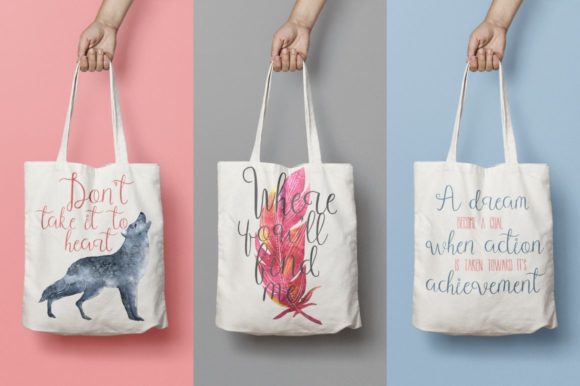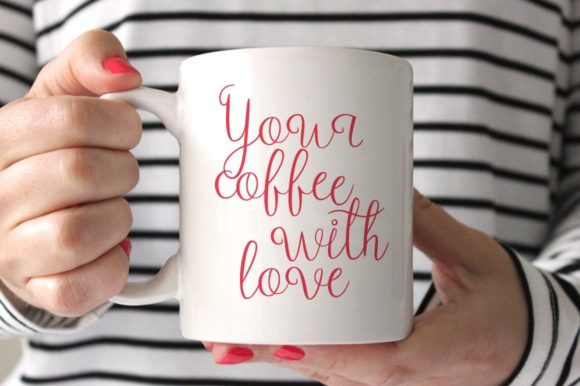
Unlock Your Creativity with Beathrice Font
Have you ever sat down with a blank piece of paper, a cup of coffee, and a spark of inspiration, only to let it fade away as you struggle to bring your vision to life? We’ve all been there, and that’s why we’re excited to introduce you to Beathrice Font – a beautiful, handwritten font that’s designed to help you express yourself with ease.
Whether you’re a seasoned designer or a creative hobbyist, Beathrice Font is the perfect tool to add a personal touch to your projects. With its unique blend of alternative letters and free watercolor elements, this font is ideal for creating eye-catching t-shirt designs, invitations, posters, postcards, and even branding materials for your small shop or cafe. The Beathrice Font package includes everything you need to get started, from the font files to the watercolor elements, all ready to use in your favorite design software.
Beathrice Font Key Features
- Unique Characteristics: Beathrice is a modern, elegant script font with a unique blend of handwritten and calligraphic styles, featuring flowing connections and subtle flair.
- Character Set: Supports Latin, Cyrillic, and Greek alphabets, as well as a range of punctuation and special characters
Beathrice Font Review
Beathrice Font is a beautiful, elegant script font that catches the eye ✨. The flowing lines and gentle curves create a sense of sophistication and refinement, making it perfect for high-end branding, weddings, and other special occasions.
- The Beathrice Font is highly legible, even at small sizes ✨.
- The font’s subtle flourishes add a touch of whimsy and personality to any design.
- The Beathrice Font is highly customizable, allowing designers to adjust the spacing and kerning to suit their needs.
- The Beathrice Font can be challenging to read in bold or all-caps styles ⚠️.
- The font’s connecting strokes can be difficult to manage in certain situations, such as when using Beathrice in combination with other fonts.
Overall, the Beathrice Font is a stunning addition to any designer’s toolkit. While it may have some limitations, its beauty and elegance make it well worth the occasional challenges. With practice and patience, designers can master the Beathrice Font and create truly breathtaking designs.
Beathrice Font is ideal for creating elegant and sophisticated designs, making it perfect for wedding invitations, business cards, and other high-end marketing materials.
Beathrice Font is ideal for creating intricate and detailed designs, making it perfect for logos, typography-based art, and other high-end design projects.
Beathrice Font is ideal for creating elegant and sophisticated presentations, making it perfect for business pitches, product launches, and other high-end marketing materials.
Beathrice Font is ideal for:
- Logos and typography-based art
- Presentation and document design
Remember to experiment with different font sizes, colors, and styles to get the most
What is the recommended font size for Beathrice?
The recommended font size for Beathrice varies depending on the application and intended use. However, as a general guideline, we recommend using Beathrice at a minimum font size of 14 points for body text and 24 points for headings.
Is Beathrice optimized for digital use?
Yes, Beathrice is optimized for digital use and is designed to look great on a variety of screens and devices. The font features a high level of hinting, which ensures crisp and clear text at small font sizes and on low-resolution displays.